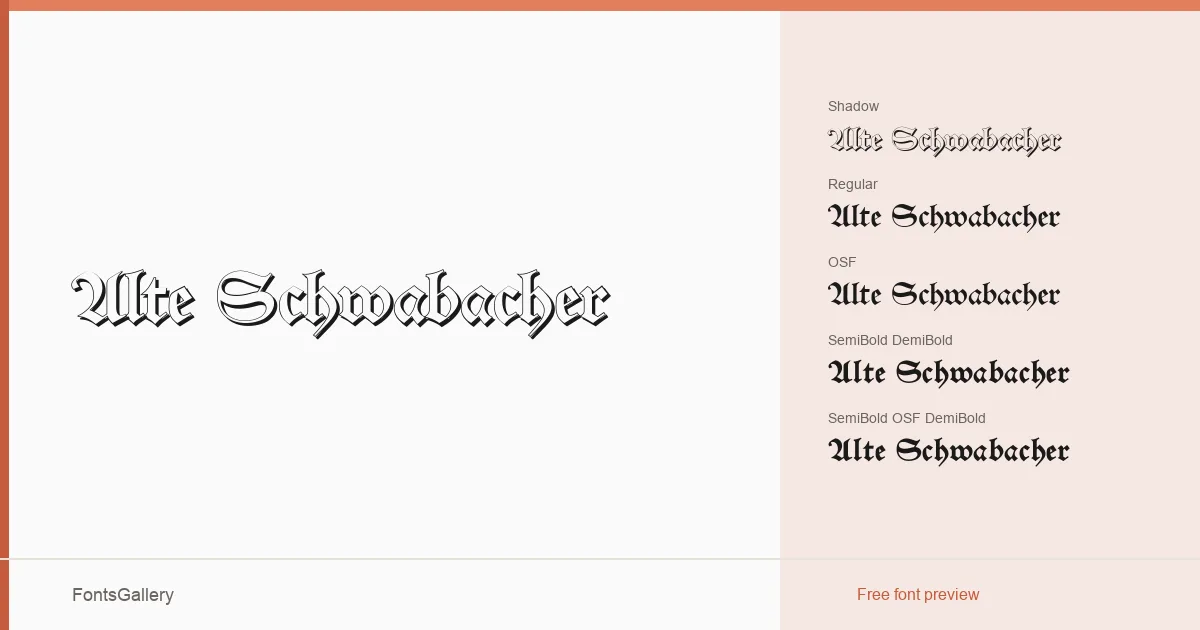
About Alte Schwabacher Font
Alte Schwabacher is a striking blackletter typeface published by Typographer Mediengestaltung, rooted in the rich tradition of classic Germanic script styles. Its bold, ornate letterforms carry an unmistakable vintage character that commands attention across a wide range of design applications. This typeface bridges historical craftsmanship with a raw, grunge-influenced energy that feels equally at home in contemporary and traditional contexts.
As a blackletter font, Alte Schwabacher features the dense, angular strokes and dramatic thick-to-thin transitions that define the classic Schwabacher style. Its bold weight and vintage personality lend each letterform a sense of authority and timeless gravitas, while subtle grunge qualities add a rugged, lived-in texture. The result is a typeface that feels both historically grounded and powerfully expressive.
Alte Schwabacher excels in high-impact design work such as logos, posters, branding materials, t-shirt designs, and certificates where a bold, classic statement is desired. Its commanding presence makes it ideal as a display or headline face rather than for extended body text. For balanced contrast, it pairs effectively with the clean neutrality of Helvetica or the complementary character of Aresink.